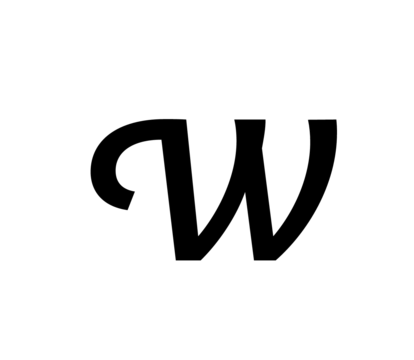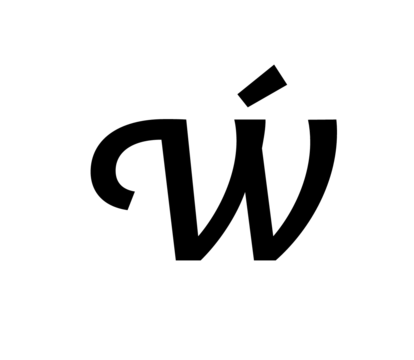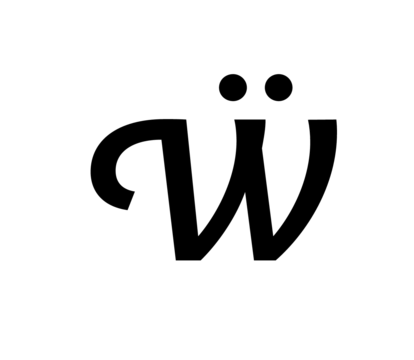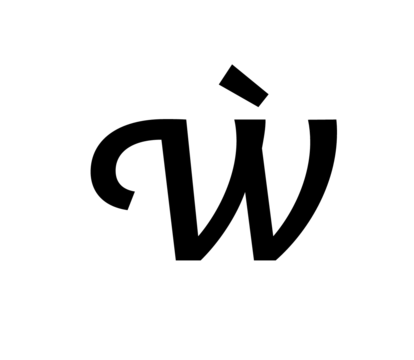
Tidy Script is a cursive-style constructed sans. Almost all letters in the fonts connect. The typeface is inspired by engineering letters and obscure typewriter faces. Tidy Script’s letter structure is based on handwriting. Characters each have mild slant; about 7˚. Counterforms are large, and the capitals are more decorative than the lowercase. When using Tidy Script, make sure to switch on the OpenType Contextual Alternate and Ligatures features. That way, you’ll have automatic access to the dozens extra glyphs in each of the fonts.
Family Name Tidy Script
Designer(s) Joana Correia, Natanael Gama
Classification Display, Script